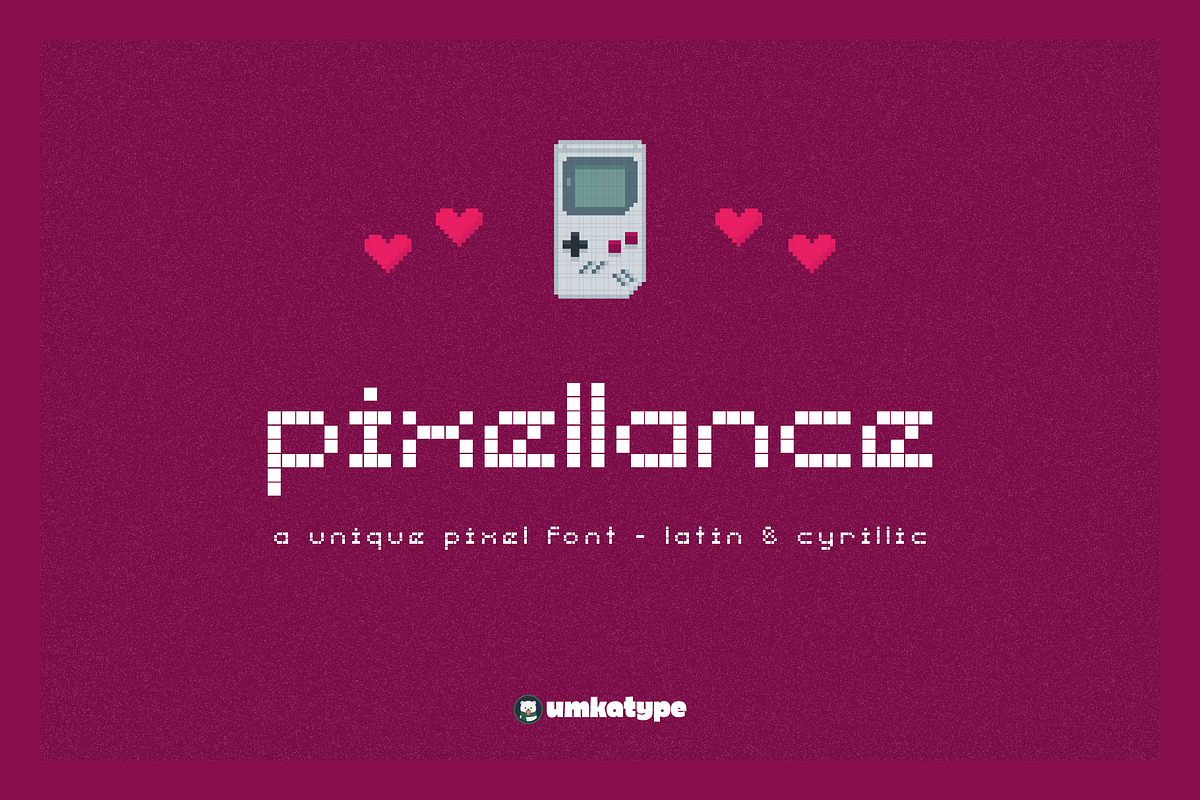
Pixellance Game Font Free Download is a retro-inspired pixel typeface designed for gamers, streamers, and digital creators who want that nostalgic 8-bit vibe. Perfect for indie game titles, arcade-themed posters, Twitch overlays, YouTube thumbnails, and pixel art branding, Pixellance delivers classic gaming aesthetics with a fresh, modern edge.
Its blocky, grid-based structure offers excellent readability while keeping that iconic pixel style intact. Whether you're developing a game or creating content for the gaming community, Pixellance adds a strong, playful identity to your visuals.